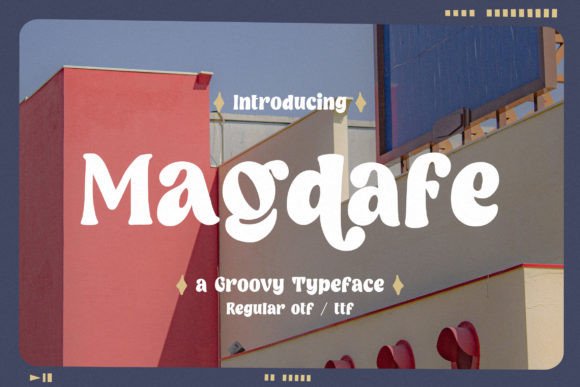
Welcome to the world of Magdafe font, where enchantment and vibrancy unite to produce unrivaled visual delight. Step into a realm where nostalgia and modernity intertwine, creating an aesthetic that resonates with charm and intrigue. Magdafe, a true masterpiece from the Typefactory foundry, is not just a font; it's an experience.
Meet Magdafe, the groovy display font that ignites your imagination and sets your designs apart. Its playful, retro vibe captures the essence of a bygone era, while its bold, contemporary lines infuse it with a modern edge. Magdafe is not just a font; it's a gateway to a world of boundless creativity, inviting you to explore uncharted territories of visual expression.
With its distinctive character and boundless versatility, Magdafe is the perfect partner for web advertising. Its captivating presence commands attention, ensuring your message shines through the digital clutter. Magdafe breathes life into headlines, banners, social media posts, and landing pages, making every word a captivating spectacle. Let Magdafe be your ambassador, spreading your message with style and impact.
Transport your audience to an era of groovy nostalgia with Magdafe. Its retro charm evokes a sense of warmth and familiarity, creating an emotional connection that resonates with viewers. Whether you're crafting logos, posters, or invitations, Magdafe seamlessly blends the past and present, leaving an indelible mark on hearts and minds.
Unleash your creativity and embark on a journey of visual storytelling with Magdafe. Its versatility extends to a wide range of design projects, from branding and packaging to editorial and advertising. Let Magdafe's charm infuse your designs with a touch of nostalgia, while its modern appeal keeps them rooted in the present.
Don't settle for ordinary fonts. Choose Magdafe, the groovy display font that adds a spark of individuality to your designs. Its playful spirit and captivating aesthetic will turn heads and leave a lasting impression. Experience the magic of Magdafe today and unlock a world of creative possibilities.